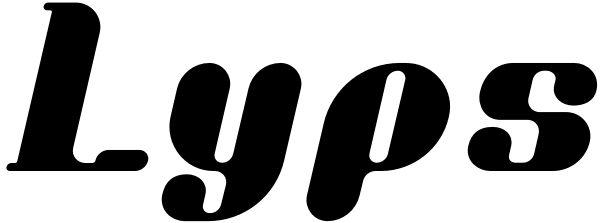
Lyps
Lyps is a contemporary headline family designed by Heiko Hoos. There are 4 font styles: Lyps Regular, Lyps Small, Lyps Extra Small and Lyps Wide. Each font file has OpenType features for ligatures, caps and some alternative Type variations. The Lyps...